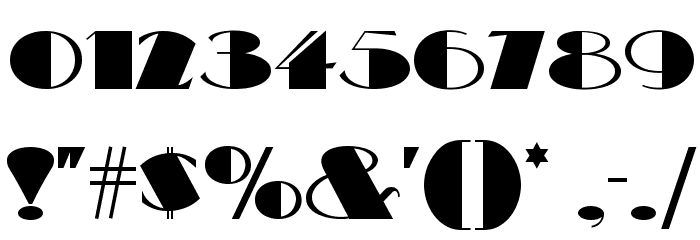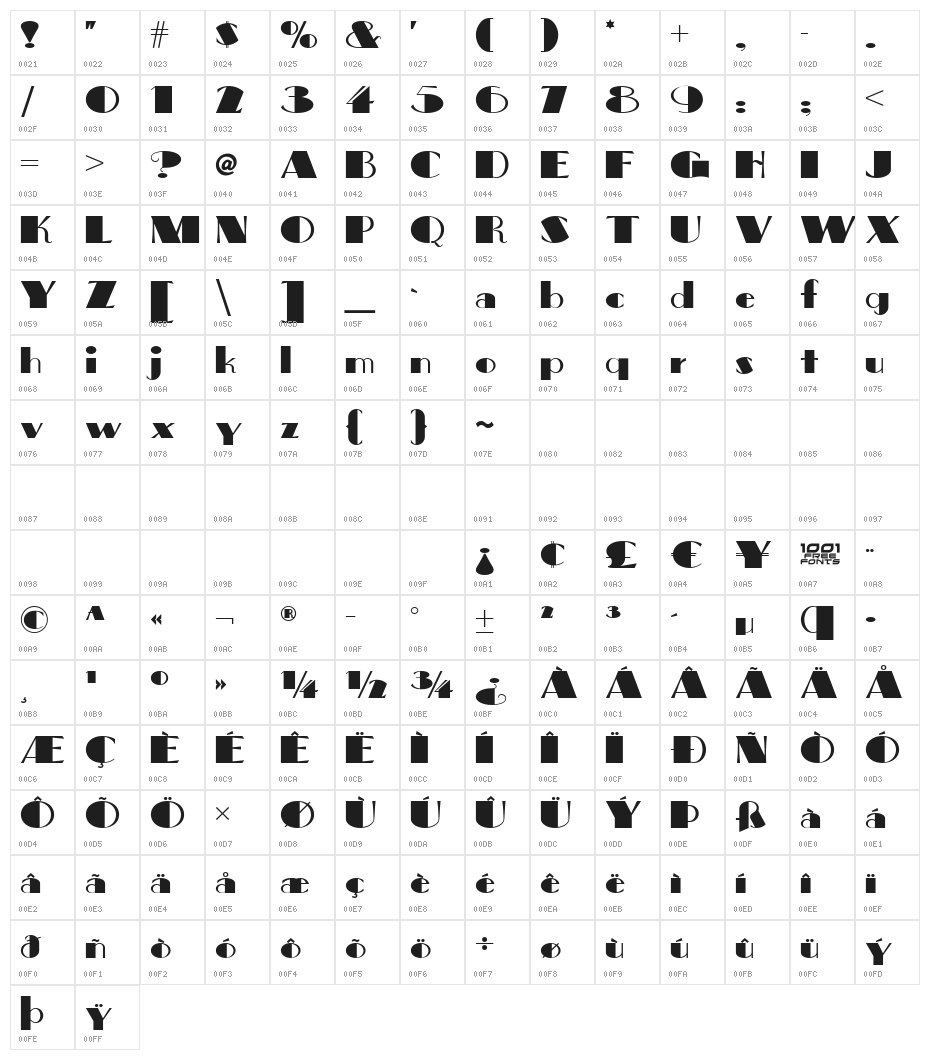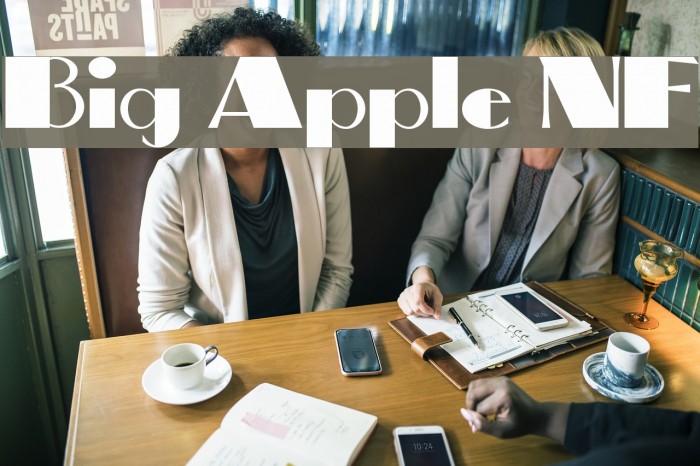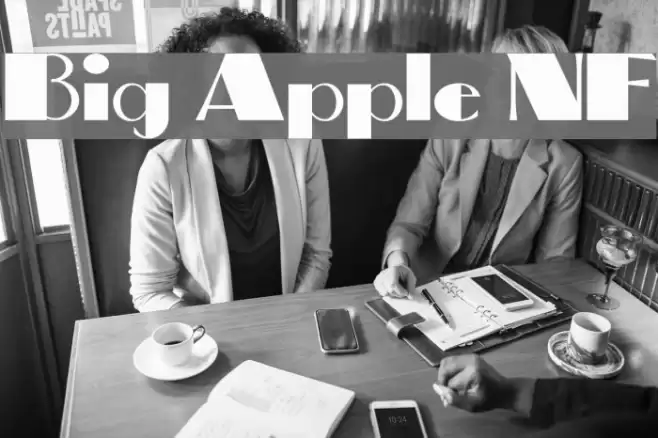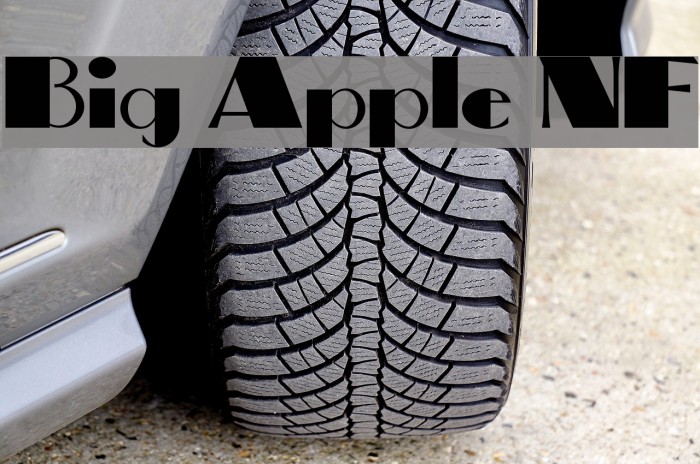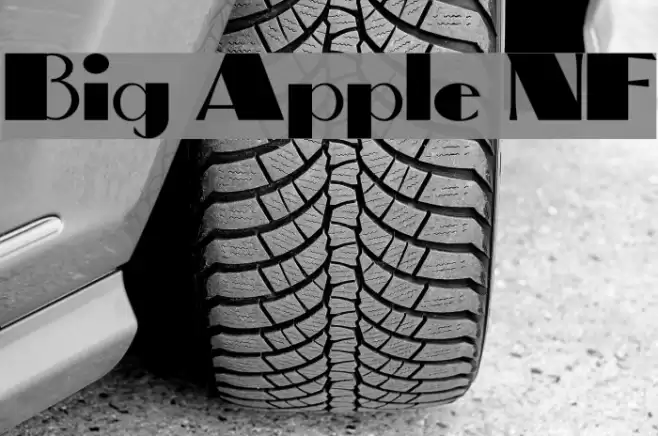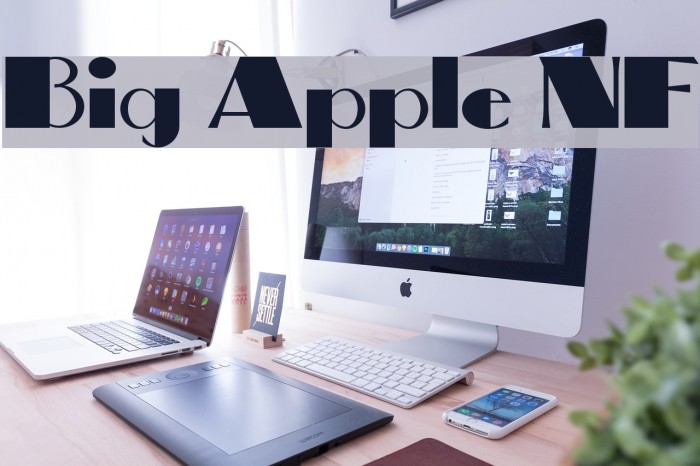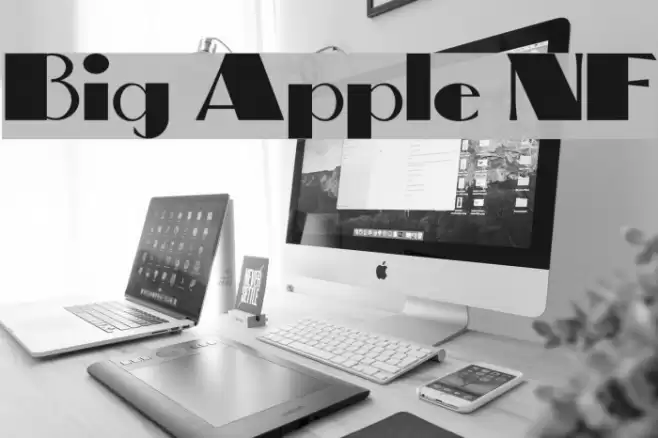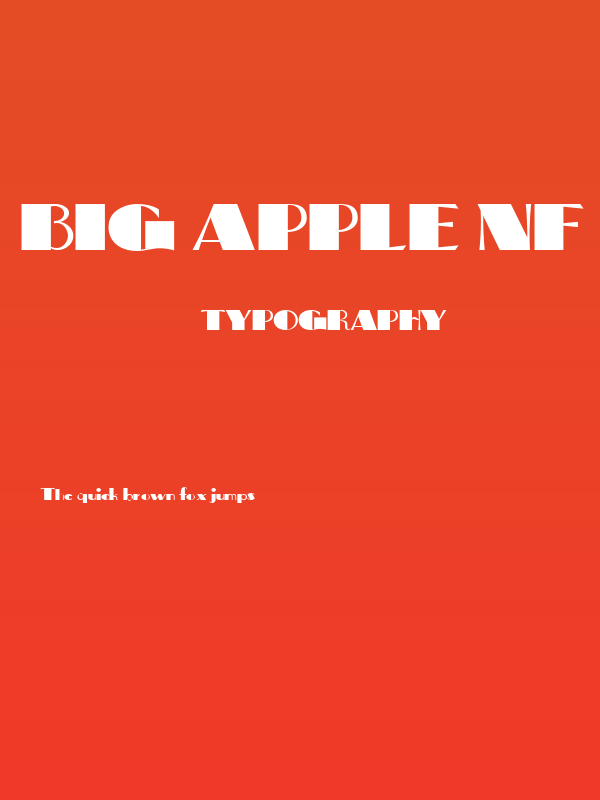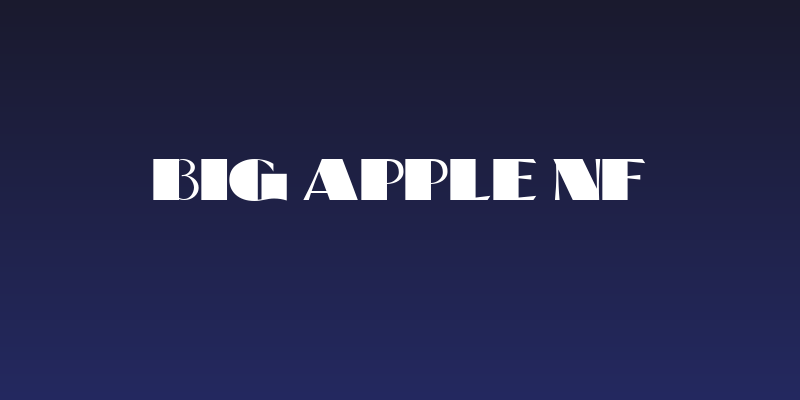
Big Apple NF Font
Big Apple NF Description
This font features a bold and striking design with a strong geometric influence. The uppercase letters are characterized by their thick, block-like forms with sharp angles and a sense of symmetry. The lowercase letters maintain a similar boldness but introduce more curves, adding a touch of elegance to the overall appearance. The numerals are consistent with the bold style, ensuring readability and impact. Special characters are creatively designed, maintaining the font's unique aesthetic. This font's high contrast between thick and thin strokes adds to its dramatic and eye-catching nature.